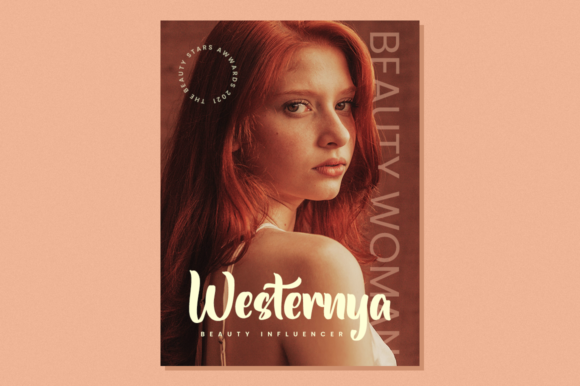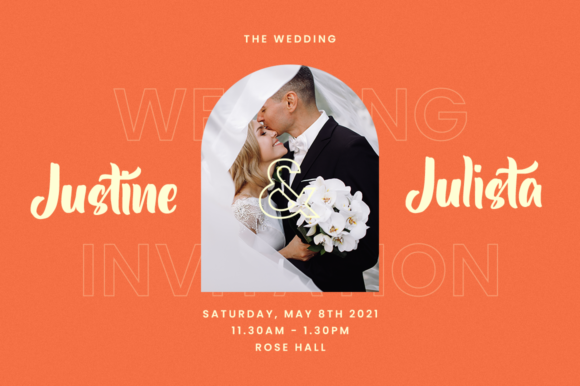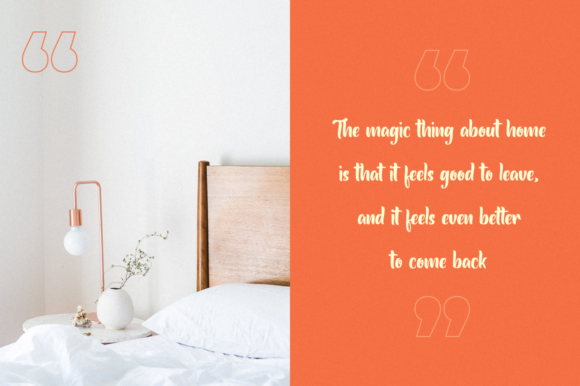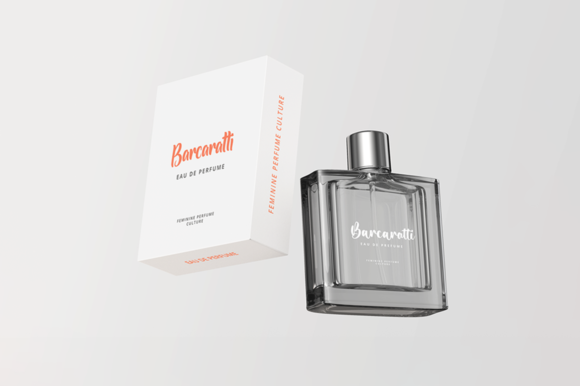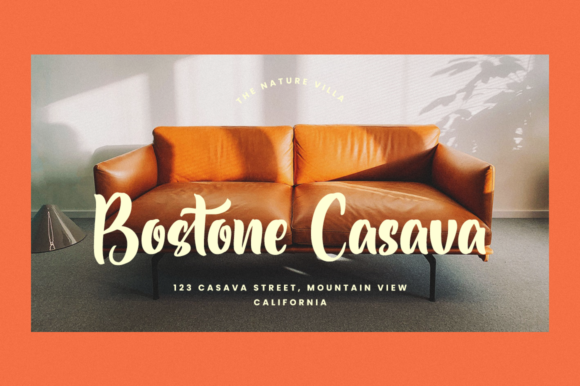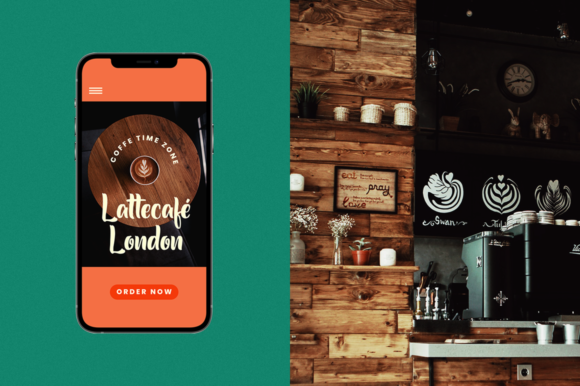
Discover the Magic of the Castonvilla Font
Do you remember that moment when a single font changed the entire vibe of your design project? For many designers, it’s a feeling of pure excitement and creative freedom. That’s exactly what happens when you add the Castonvilla Font to your most imaginative ideas.
This lovely script font is designed to add a touch of whimsy and charm to your designs. With its playful characters that seem to dance along the baseline, the Castonvilla Font is perfect for adding a personal touch to your creative projects. Whether you’re designing a logo, a brochure, or a social media post, this font is sure to make your work stand out from the crowd.
As a valuable addition to any designer’s toolkit, the Castonvilla Font offers endless possibilities for creativity and self-expression. With its unique charm and playful personality, it’s no wonder that designers are falling in love with this font.
- Unique Characteristics: The Castonvilla Font features a distinctive, elegant design with intricate details and ornate flourishes, making it perfect for adding a touch of sophistication to any design project.
Castonvilla Font Review
As a designer, I’ve had the chance to work with various fonts, and Castonvilla is one that caught my attention. Here’s my honest review.
- Unique and elegant design: Castonvilla has a distinctive style that sets it apart from other fonts.
- Wide range of applications: From headings to body text, Castonvilla works well in various contexts, including digital and print materials.
- Good legibility: Despite its unique design, Castonvilla is easy to read, making it suitable for a wide range of audiences.
- Limited character set: Castonvilla’s character set is limited, which might make it less suitable for languages that require a broader character set.
- May not be suitable for small text: Castonvilla’s design might become too elaborate when used in small text sizes, making it difficult to read.
- Not ideal for bold or italic text: Castonvilla’s design works well in regular weight, but its bold and italic versions might not be as effective.
Overall, Castonvilla is a beautiful font that can add a touch of elegance to your designs. However, its limitations should be considered before using it in your projects.
Getting the Most Out of Castonvilla Font
To get the most out of the Castonvilla Font, try the following:
- Combine the Castonvilla Font with other fonts to create a unique design.
- Use the font in conjunction with images and graphics to add depth and context.
The Castonvilla Font is ideal for:
- Use the Castonvilla Font for the title and headings to create a sense of luxury and elegance.
- Pair the font with high-quality images of your destination to create a visually appealing brochure.
3 Creative Project Ideas Using Castonvilla Font
Project 1: Vintage-Inspired Travel Brochure
Create a unique travel brochure that showcases your dream destination using the Castonvilla Font. This elegant script font will add a touch of sophistication to your travel brochure.
How to use Castonvilla Font:
Project 2: Wedding Invitation Suite
Create a stunning wedding invitation suite that sets the tone for your special day using the Castonvilla Font. This elegant script font will add a touch of whimsy and romance to your invitation suite.
How to use Castonvilla Font: